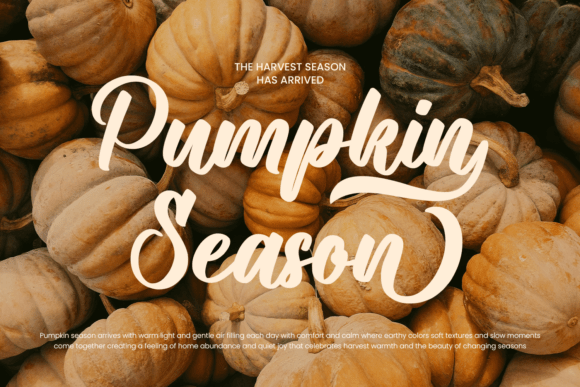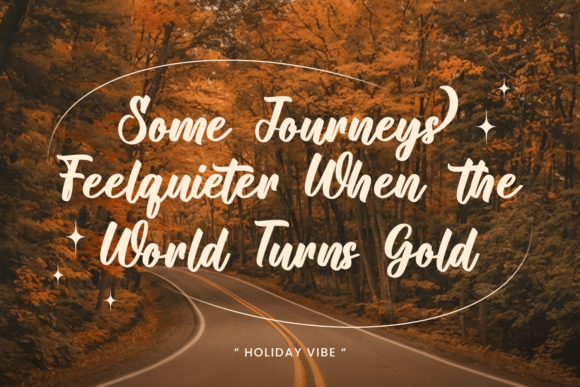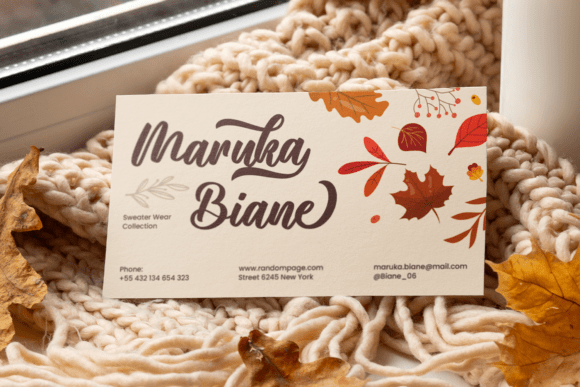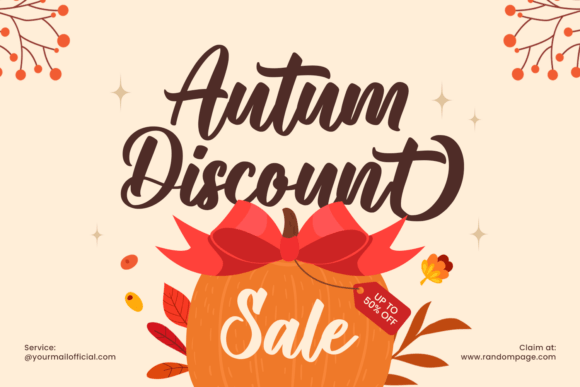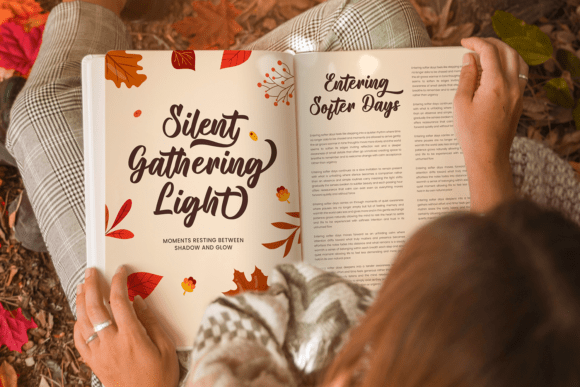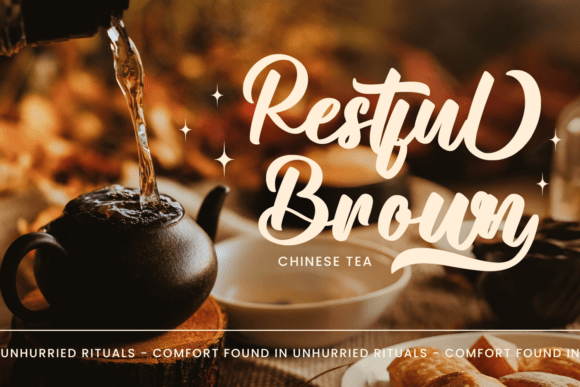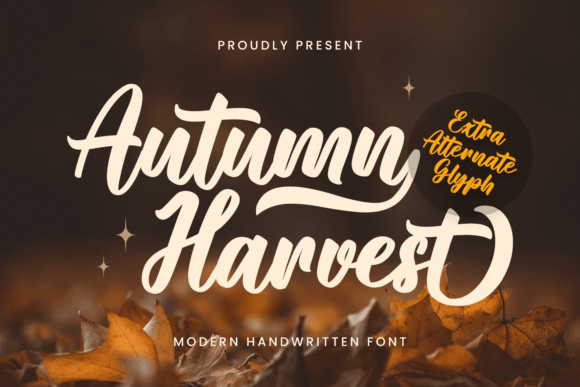
Cozy Up with Autumn Harvest Font: A Seasonal Favorite for Designers
I’ll never forget the design project that led me to discover the charming Autumn Harvest font. I was working on a Thanksgiving-themed invitation for a friend’s family gathering, and I was struggling to find the perfect font that captured the warmth and coziness of the season. That’s when I stumbled upon Autumn Harvest, and it instantly became the perfect fit. With its soft curves and handcrafted feel, this font delivered a welcoming personality that felt natural, cozy, and full of character.
As I started using Autumn Harvest in my designs, I fell in love with its playful yet balanced style. Here are a few things that make this font stand out:
• ✨ Warm and inviting personality: Autumn Harvest has a unique ability to make your designs feel cozy and welcoming, perfect for seasonal themes and traditional crafts.
• ✅ Versatility across seasons: While it’s designed to shine in autumn and Thanksgiving themes, Autumn Harvest also adapts beautifully to spring, summer, Christmas, and Easter concepts.
• ✅ Handcrafted feel: The organic letterforms reflect rustic crafts and homemade decorations, making it ideal for projects that celebrate tradition and creativity.
Of course, no font is perfect, and Autumn Harvest has a few minor quirks:
• 🤔 Limited use in formal designs: Due to its playful and script style, Autumn Harvest might not be the best fit for formal or corporate designs.
• ⚠️ Some glyphs require manual adjustment: While the font has a wide range of OpenType features, some glyphs might require manual adjustment to work seamlessly in your design.
The Story Behind Autumn Harvest
While the actual designer of Autumn Harvest remains a mystery, it’s easy to imagine the inspiration behind this charming font. Perhaps the designer grew up in a cozy small town surrounded by rolling hills, autumn leaves, and traditional crafts. Maybe they drew inspiration from vintage signs, handmade decorations, and seasonal celebrations. Whatever the story, Autumn Harvest captures the warmth and charm of the harvest season, making it a perfect fit for designers who want to add a personal touch to their creations.
Q: What makes Autumn Harvest font so special? A: Autumn Harvest font is special because of its unique blend of playfulness, warmth, and tradition. Its handcrafted feel and organic letterforms make it perfect for designs that celebrate seasonal themes and traditional crafts.
Q: Is Autumn Harvest suitable for digital and print designs? A: Yes, Autumn Harvest is suitable for both digital and print designs. Its clear and readable letterforms make it perfect for use in a variety of contexts, from social media graphics to business cards and invitations.